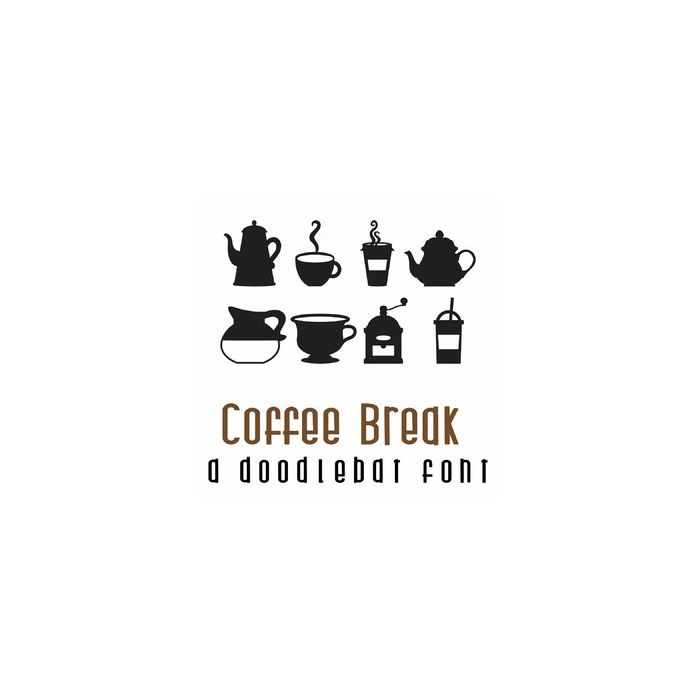
This fun doodlebat font features 26 latte and tea themed imagery. Perfect for cards, crafts, gifts, decor, scrap book pages, planner stickers and more!